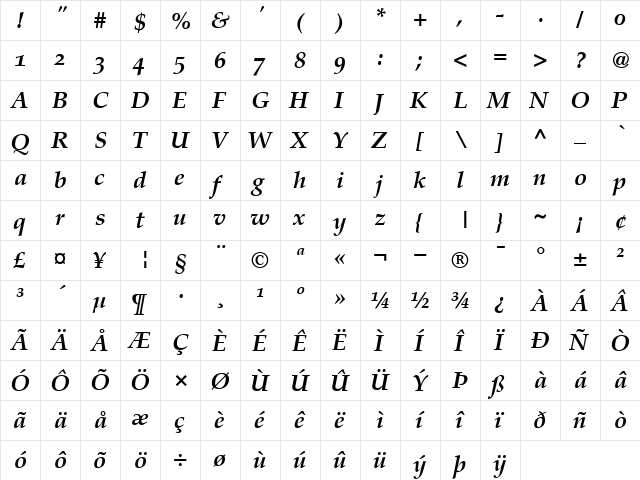
PalatinoOldStyleFigures BoldItalic Font Preview
Design Context for PalatinoOldStyleFigures Typeface
PalatinoOldStyleFigures brings classic typographic sensibility to the table — its serifs and measured letterforms reflect centuries of print heritage. The slanted form adds forward momentum and visual energy. Its bold stroke weight gives it real presence on the page.
Pro Tip: Use PalatinoOldStyleFigures for editorial body copy and considered headline work. Pair with a neutral sans for UI elements or captions to create a classic hierarchy.